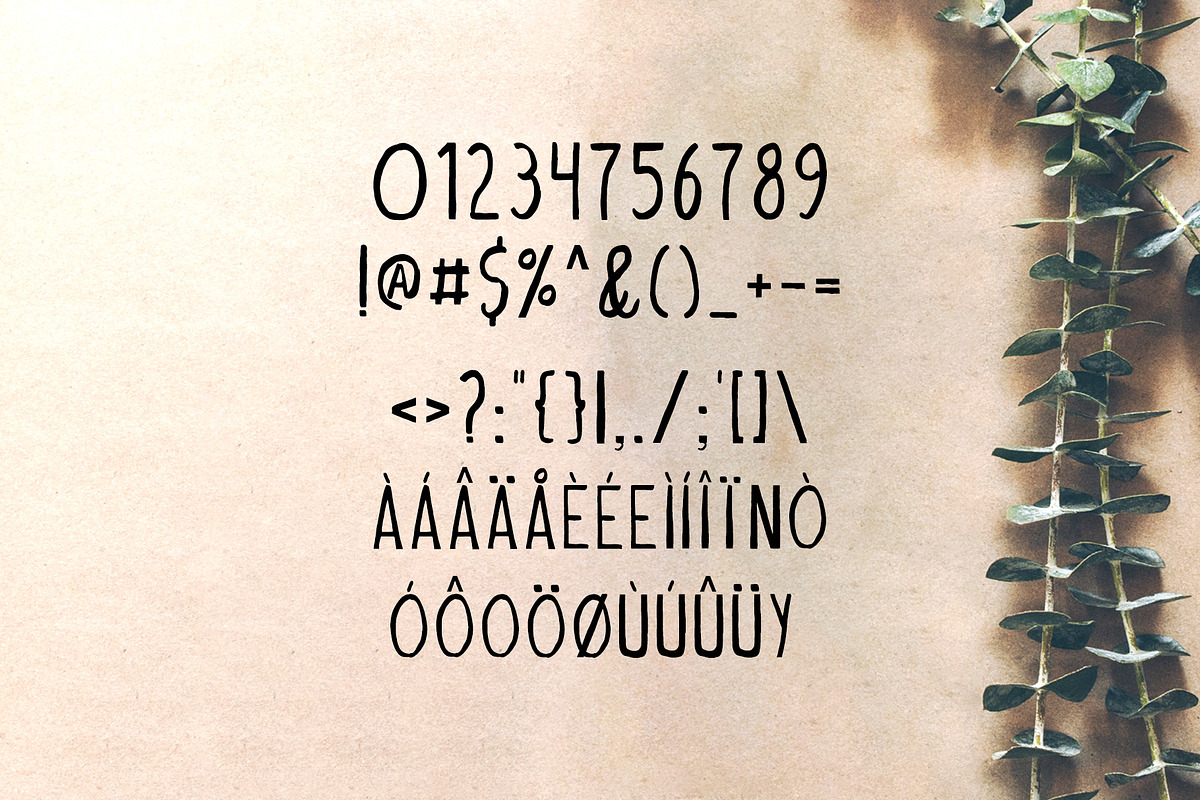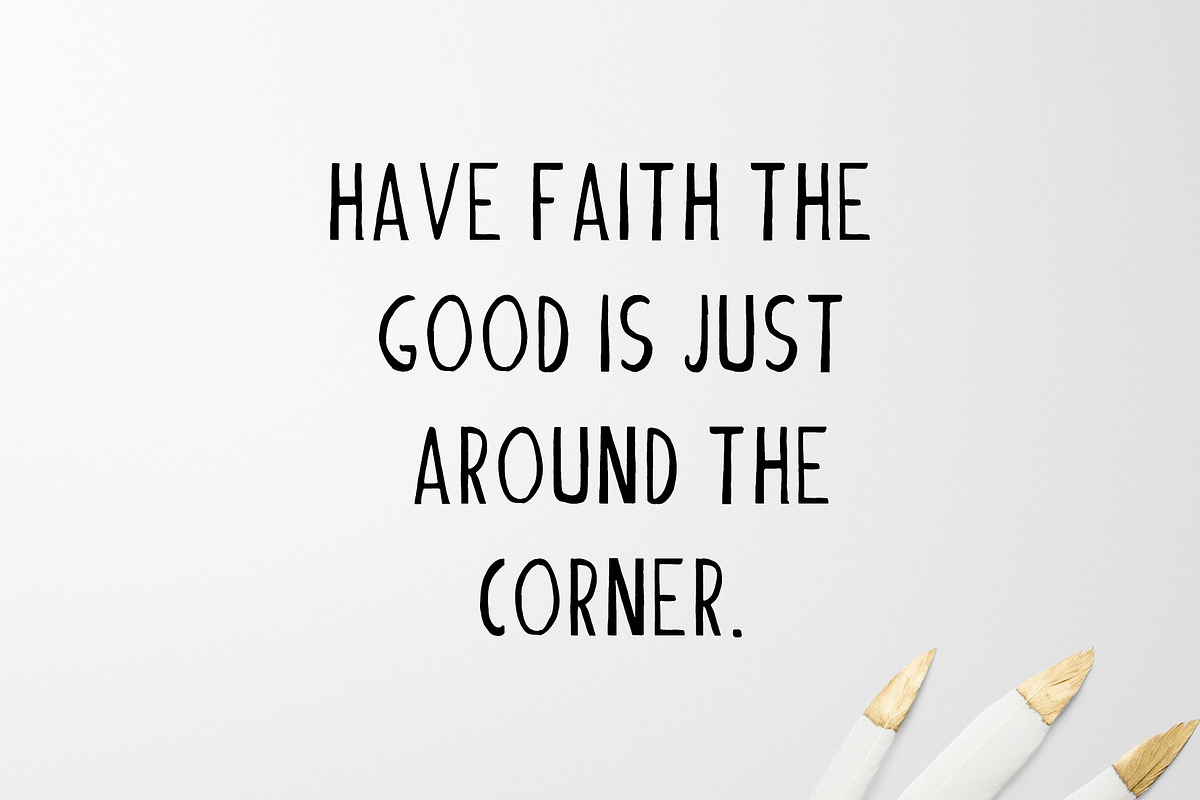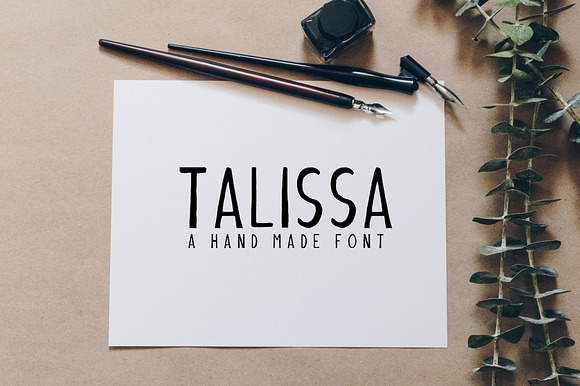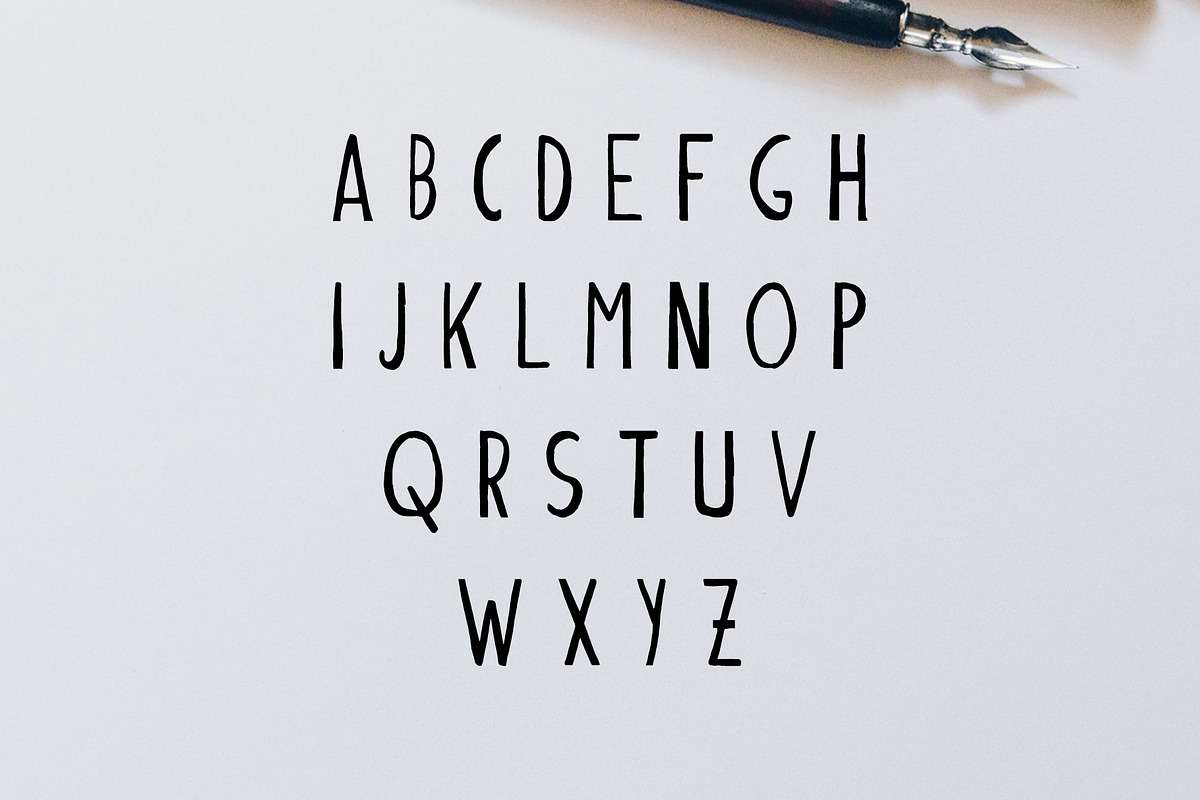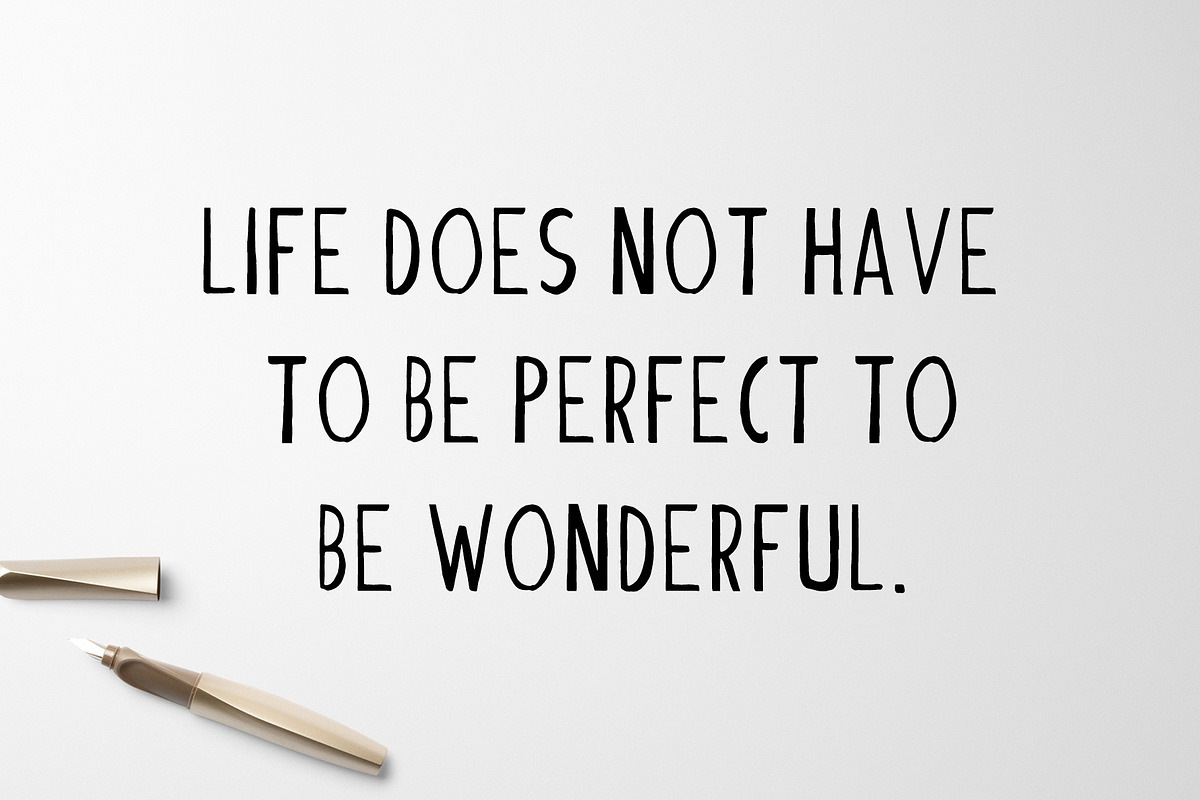
Talissa A Handmade Font
Talissa A Handmade Font it's a wonderful font design with a unique, detailed and handmade look. It looks impressive for branding, websites, designs, headlines, banners, posters, printings, T-shirts, logos, magazines, promotional product, print ads, templates, etc.
It looks gorgeous in all caps with a wide-set spacing if you want to try a classy look, or beautiful on its own in capital and lowercase letters for something completely timeless.
Non English Characters